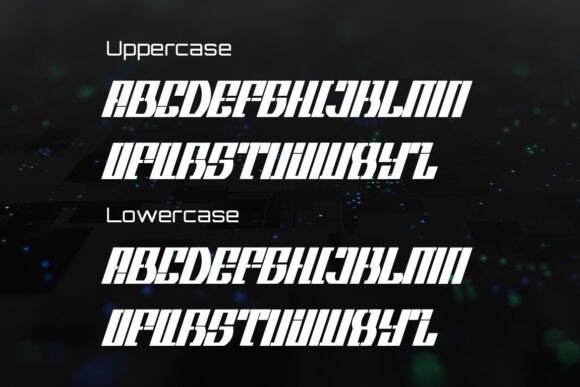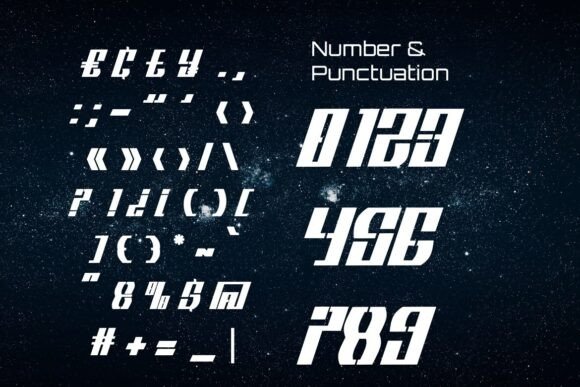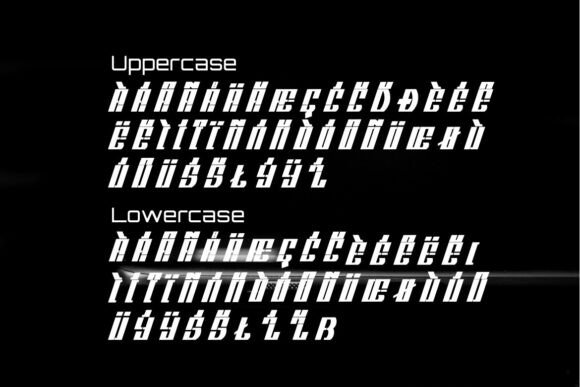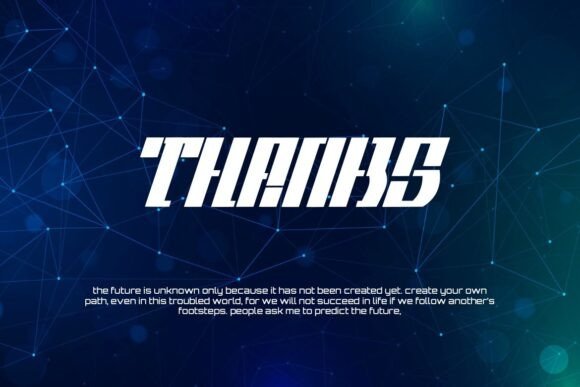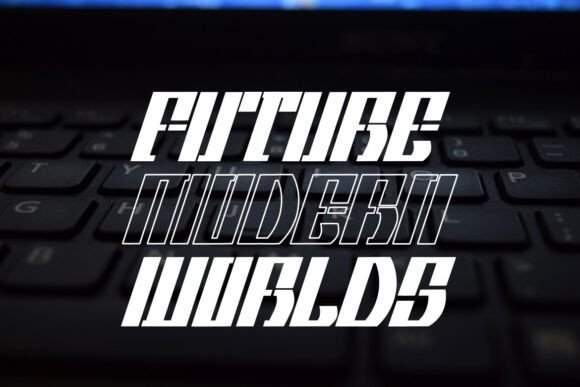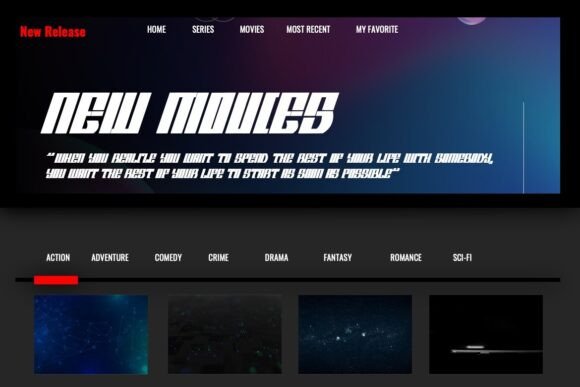
Introduction to Bomfier Font
Have you ever stared at a blank canvas, eager to bring your creative vision to life, only to find the perfect font eluding you? This is where the Bomfier Font comes in – a game-changing design resource that can elevate your creative project from ordinary to extraordinary. Its bold, modern aesthetic is sure to make a statement, with sharp, cut-out letters that exude a strong, clean look.
What sets Bomfier Font apart is its versatility and high quality, making it an ideal choice for designers who demand the best. Whether you’re working on a design project with a transparent background or need a font that stands out from the crowd, Bomfier Font is the perfect companion. And the best part? It’s available for free download, making it a valuable resource for designers of all levels.
With Bomfier Font, you can unlock a world of creative possibilities and take your designs to the next level. So why settle for an ordinary font when you can make a bold statement with Bomfier Font?
Key Features of Bomfier Font
- This high-quality font features a unique, elegant design that can be used for a variety of purposes, from headings to body text.
- The font’s unique characteristics make it stand out from other free fonts, offering a distinctive touch to any design project.
Honest Review: Bomfier Font
I recently stumbled upon the Bomfier Font, and I must say, it’s a gem in the design world. This high-quality font is perfect for designers looking for a unique and creative element to elevate their projects.
- ✨ The transparent background feature allows for seamless integration with any design, making it a versatile design resource.
- ✨ The font’s creative and playful style makes it perfect for adding a touch of whimsy to any project, from branding to advertising.
- ⚠️ The font may not be suitable for body text, as it can be quite ornate and distracting.
Overall, I’m impressed with the Bomfier Font and would highly recommend it to designers looking for a unique and high-quality design resource. With its free download option and transparent background feature, it’s a great addition to any creative project.
Common Use Cases for Bomfier Font
The Bomfier Font is ideal for creative projects such as logos, brochures, and business cards. Its high-quality design resource makes it perfect for designs that require a unique and professional look.